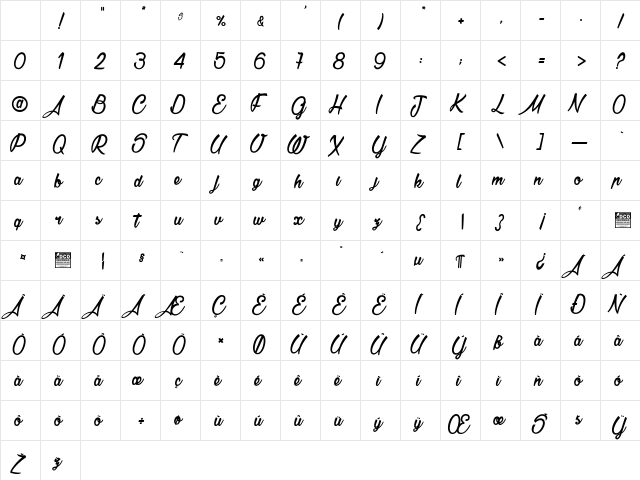
La Cithare_PersonalUseOnly is a composed and adaptable typeface that performs quietly and consistently across a wide range of design contexts.
Who designed the La Cithare_PersonalUseOnly Regular font?